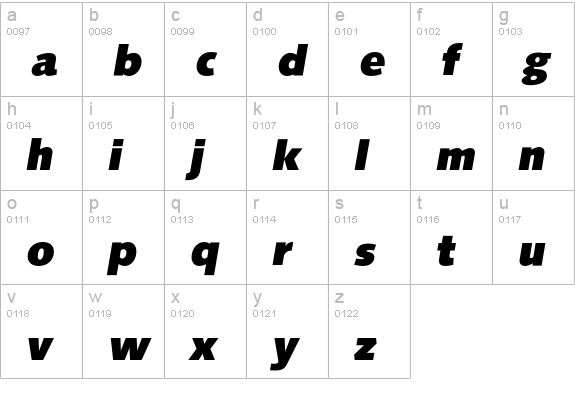
Saxony-HeavyIta Font Details
Introducing Saxony-HeavyIta, a stunning and bold font that exudes sophistication and elegance. Designed with meticulous attention to detail, this typeface is perfect for adding a touch of luxury to any design project. With its heavy weight and italicized style, Saxony-HeavyIta commands attention and creates a strong visual impact. Its sturdy and well-defined letterforms make it ideal for headlines, titles, and logos, ensuring that your message stands out with utmost clarity and authority. But what truly sets Saxony-HeavyIta apart is its versatility. Whether you're designing for print or digital media, this font effortlessly adapts to various applications, from branding and packaging to editorial design and advertising. Its timeless appeal makes it suitable for both contemporary and classic design styles, effortlessly bridging the gap between tradition and modernity. And the best part? Saxony-HeavyIta is absolutely free! That's right, this exceptional font is freely available to download at FontsMarket.com. Say goodbye to expensive licensing fees and enjoy the freedom of using a high-quality font without breaking the bank. So why wait? Elevate your designs with the captivating allure of Saxony-HeavyIta. Download it now and let your creativity soar to new heights.